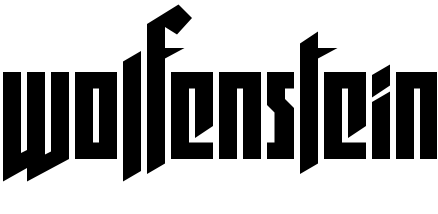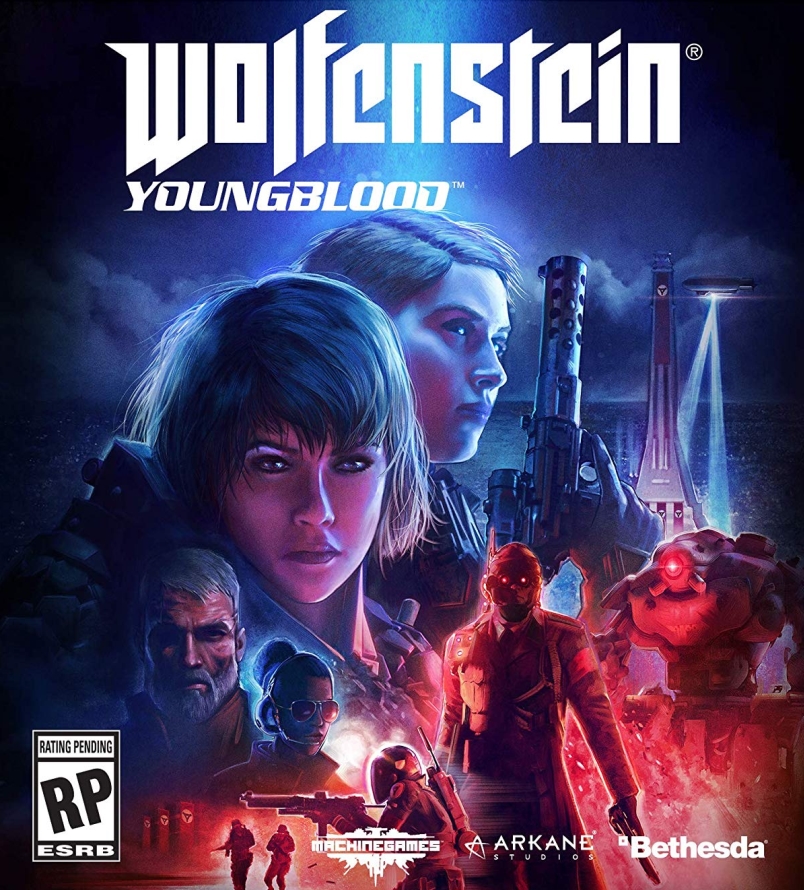
Wolfenstein Youngblood Font
Fonts in UseWolfenstein: Youngblood is a first-person shooter video game set in an alternate 1980s Paris, where players take on the roles of BJ Blazkowicz's twin daughters on a mission to find their missing father and liberate the city from Nazi control.
The primary logo bears a resemblance to a fan-created typeface known as Wolfenstein. You can easily download this font at no cost here at FontGet. While the "Youngblood" text is similar to Dick Jensen's Serpentine font.